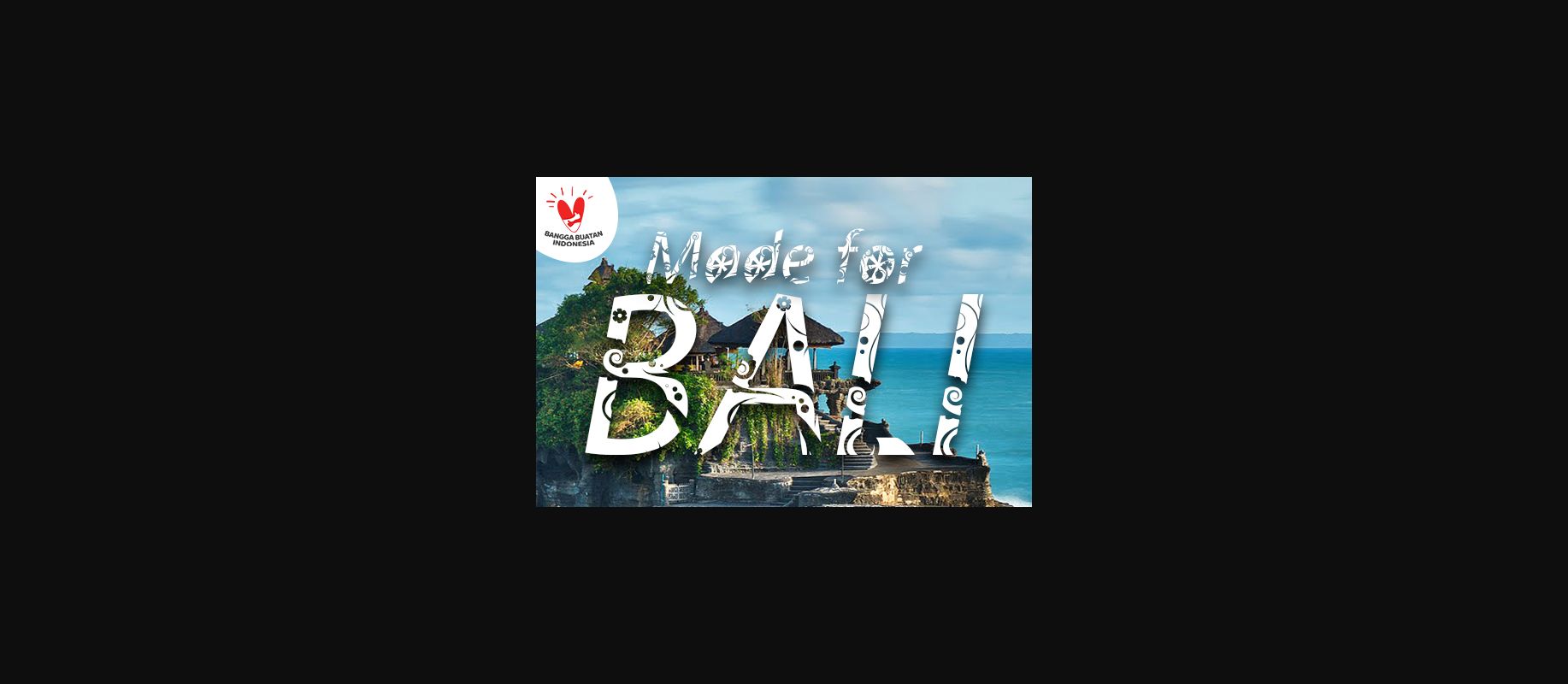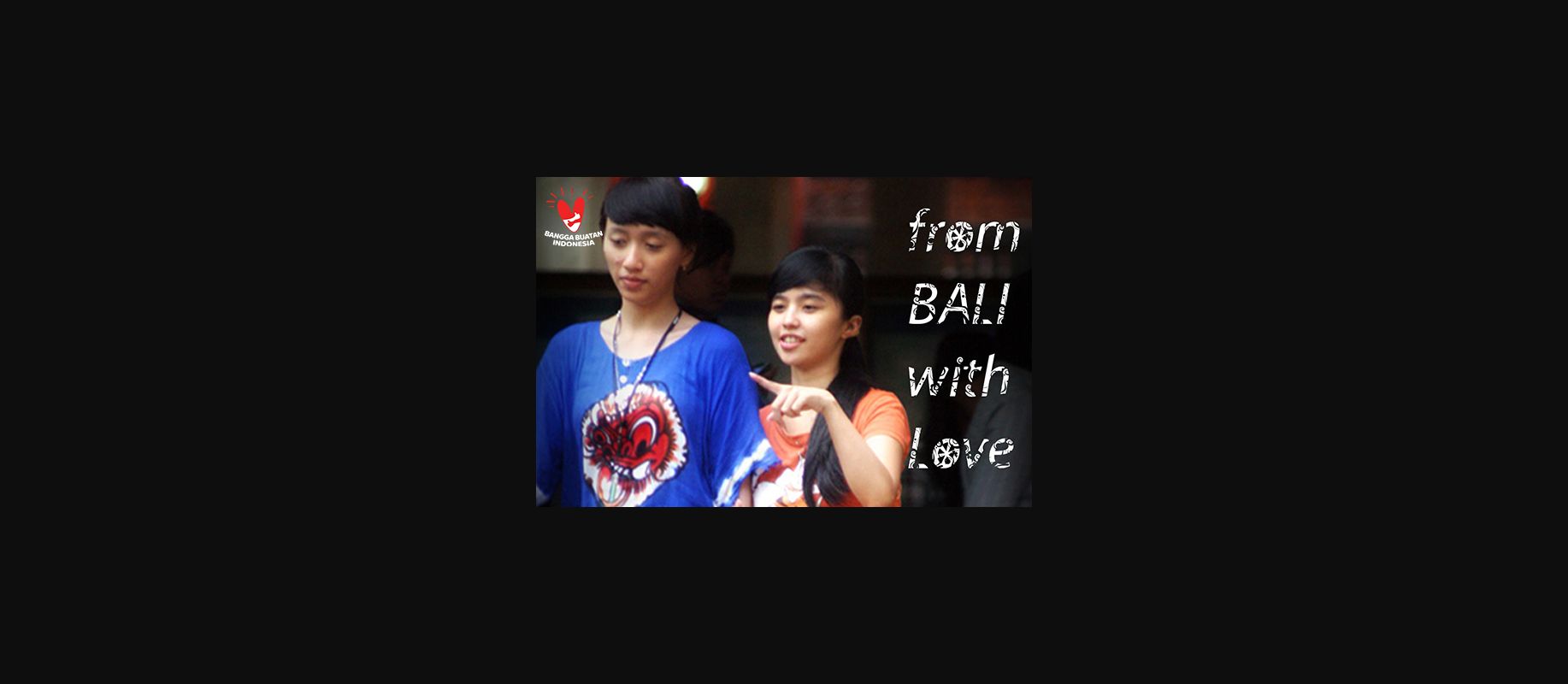
About Bali Font
Bali is an incredibly unique and interesting decorative font. Add this font to your creative ideas and notice how it will make them stand out!